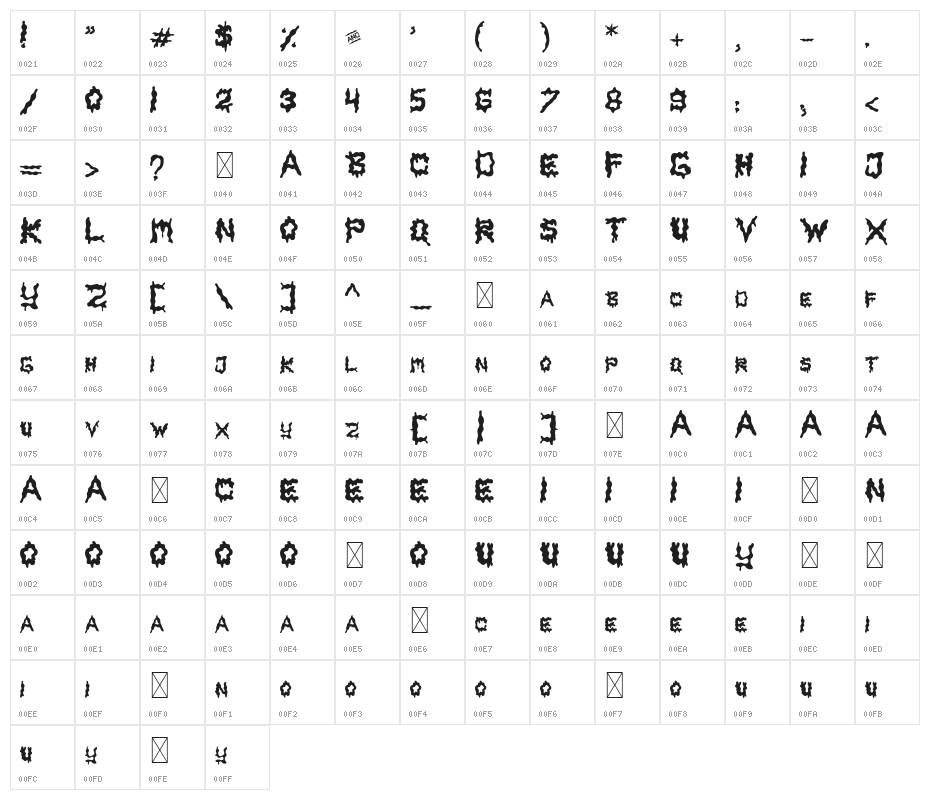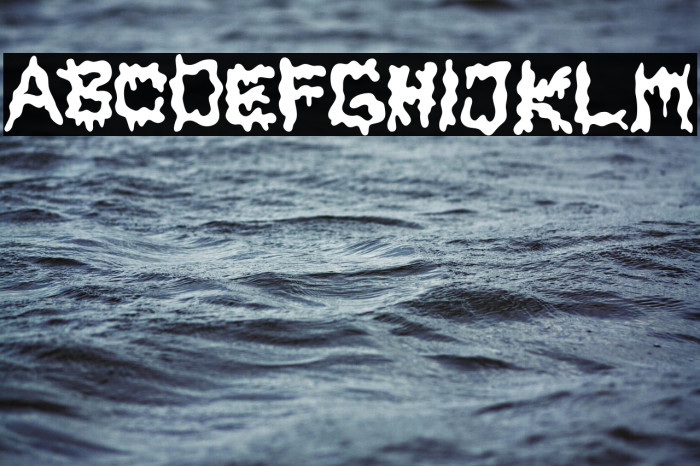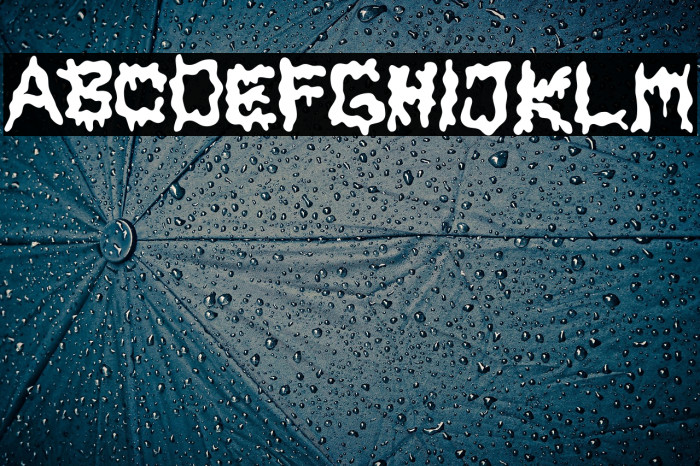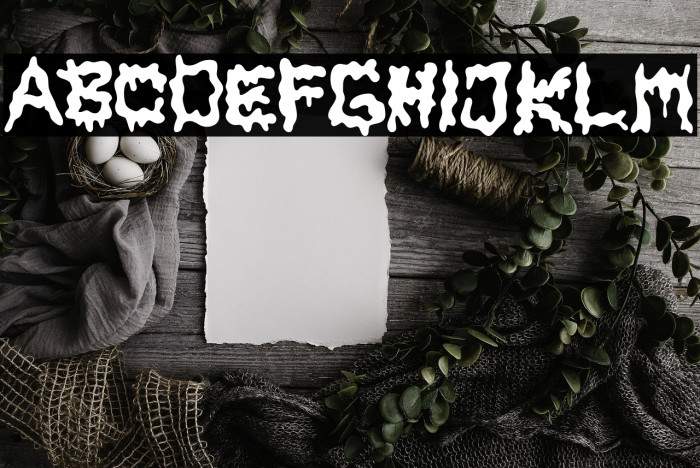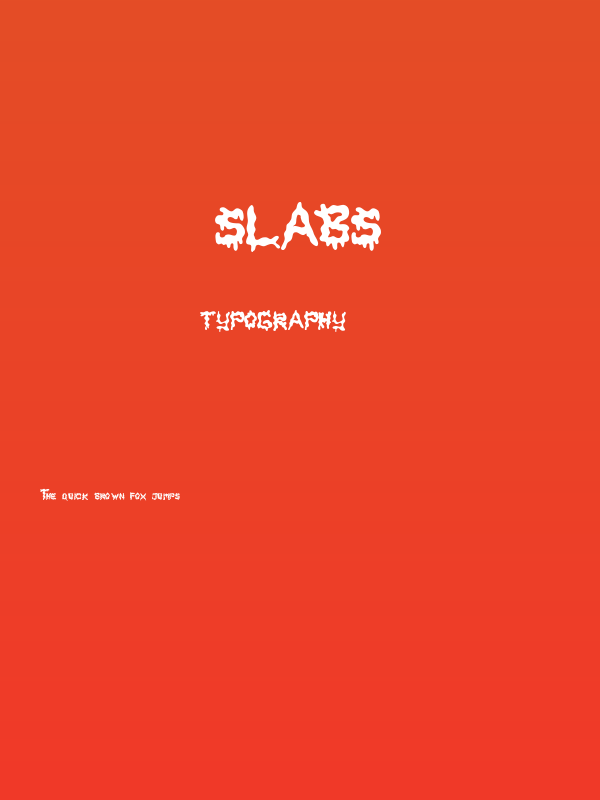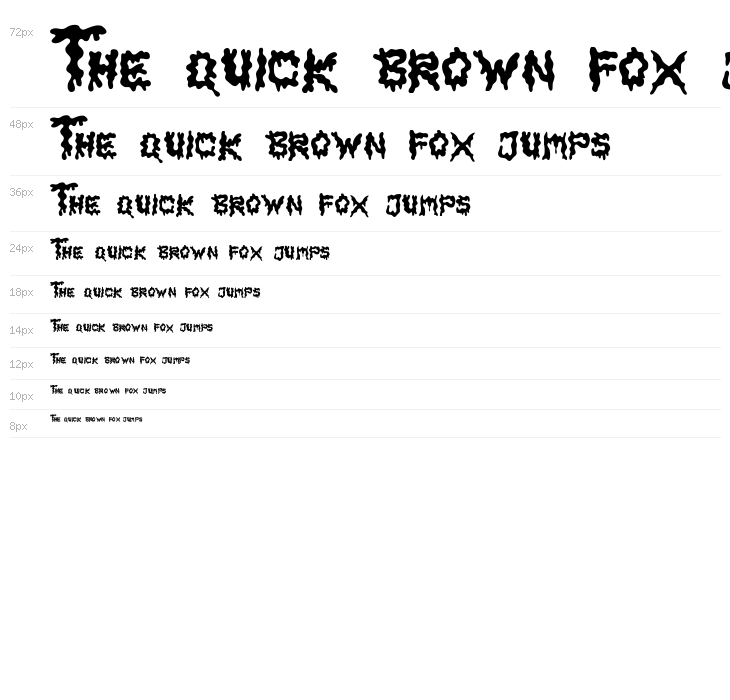
Slabs Font
Slabs Description
This font features a highly decorative and unique style, characterized by its irregular, organic shapes that resemble dripping or melting forms. The letters have a playful and somewhat chaotic appearance, making them stand out with their bold and artistic flair. The font maintains a consistent thickness throughout, with no significant variation in stroke width, giving it a uniform look despite its unconventional design. The characters are closely spaced, enhancing the compact and dense feel of the text. This font is ideal for creative projects that require a distinctive and eye-catching typeface.
| Proposed Projects | Perfect for Halloween-themed designs, posters, album covers, or any project needing a spooky or artistic touch. |